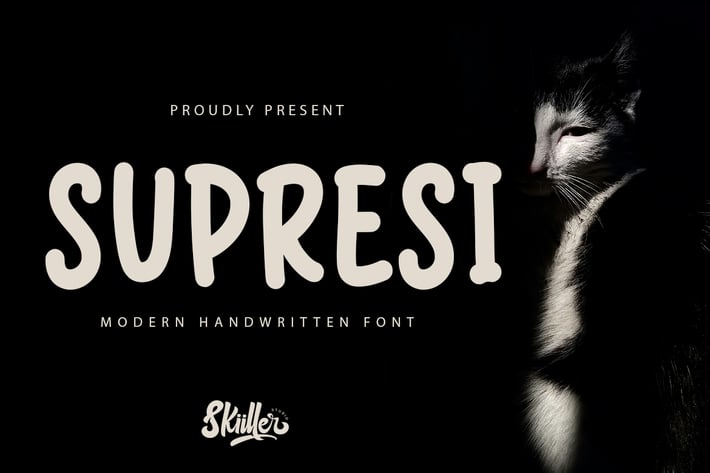
Supresi - Handwritten Font
Supresi a handwritten font. This font will very suitable for your fun project like children party, cute quotes, or any cute fun related projects. Grab it now !